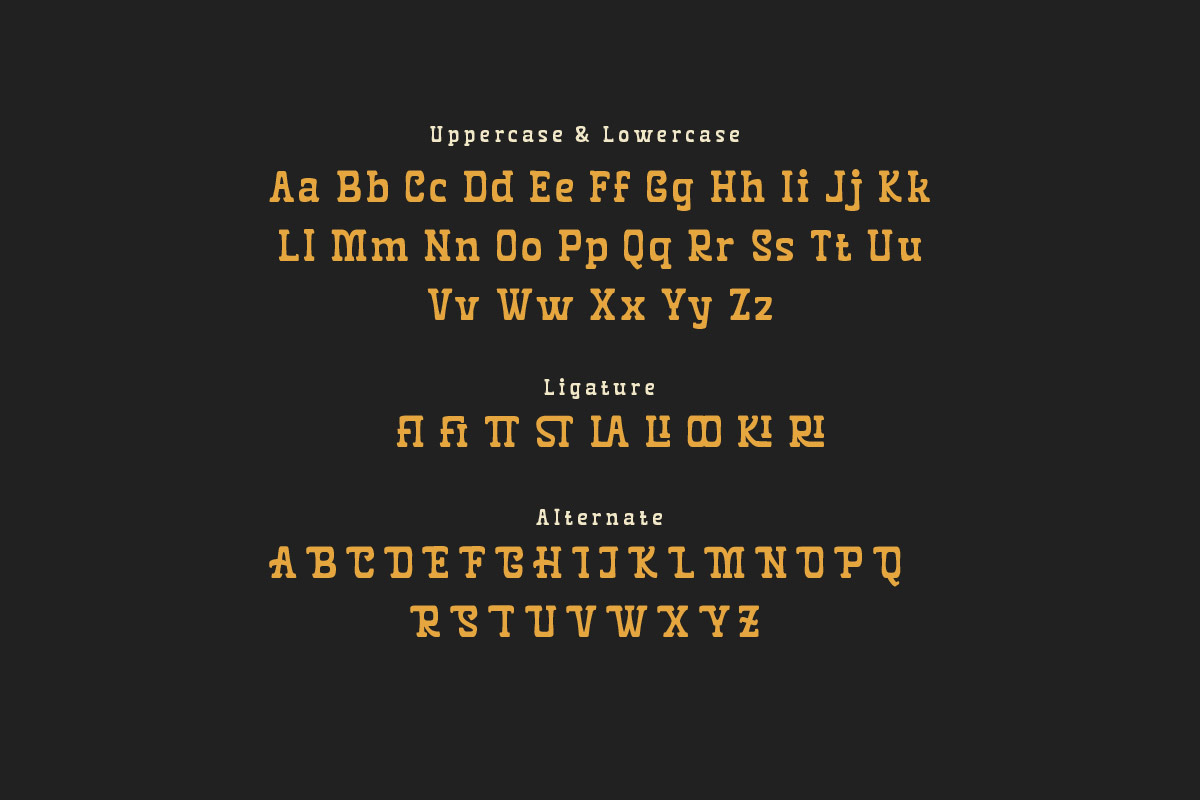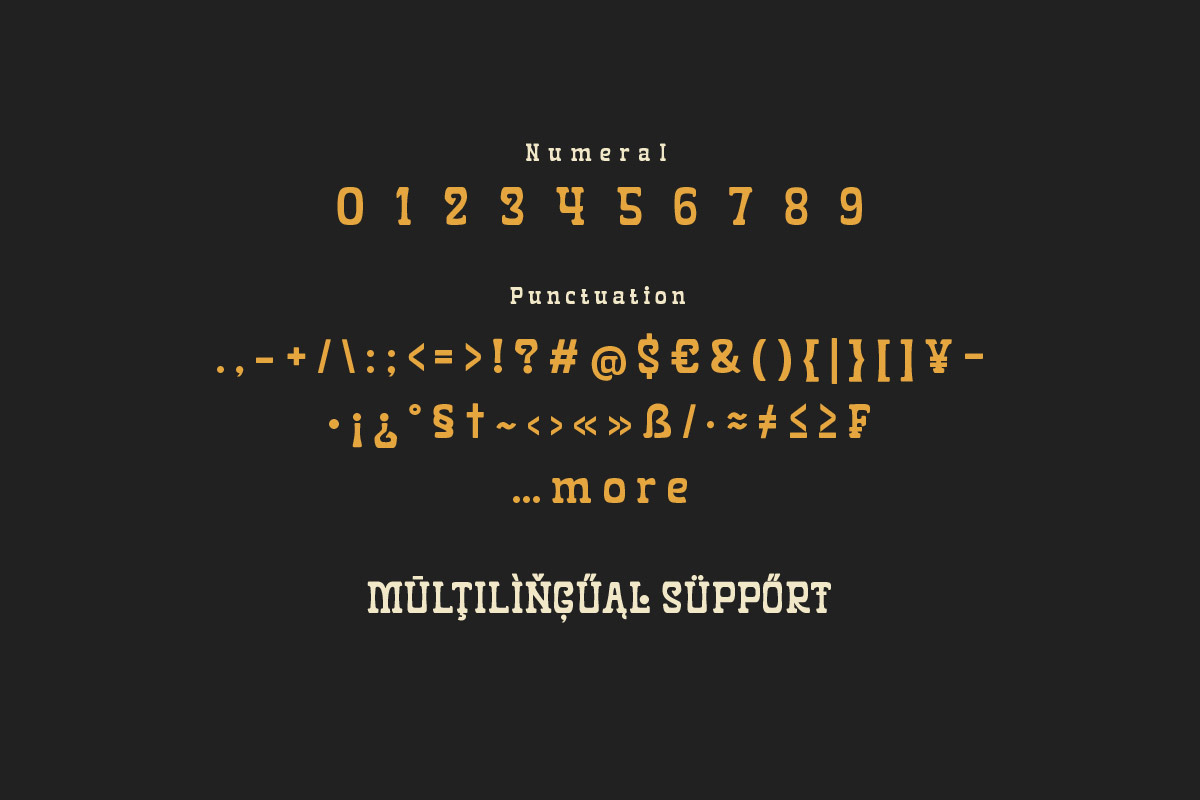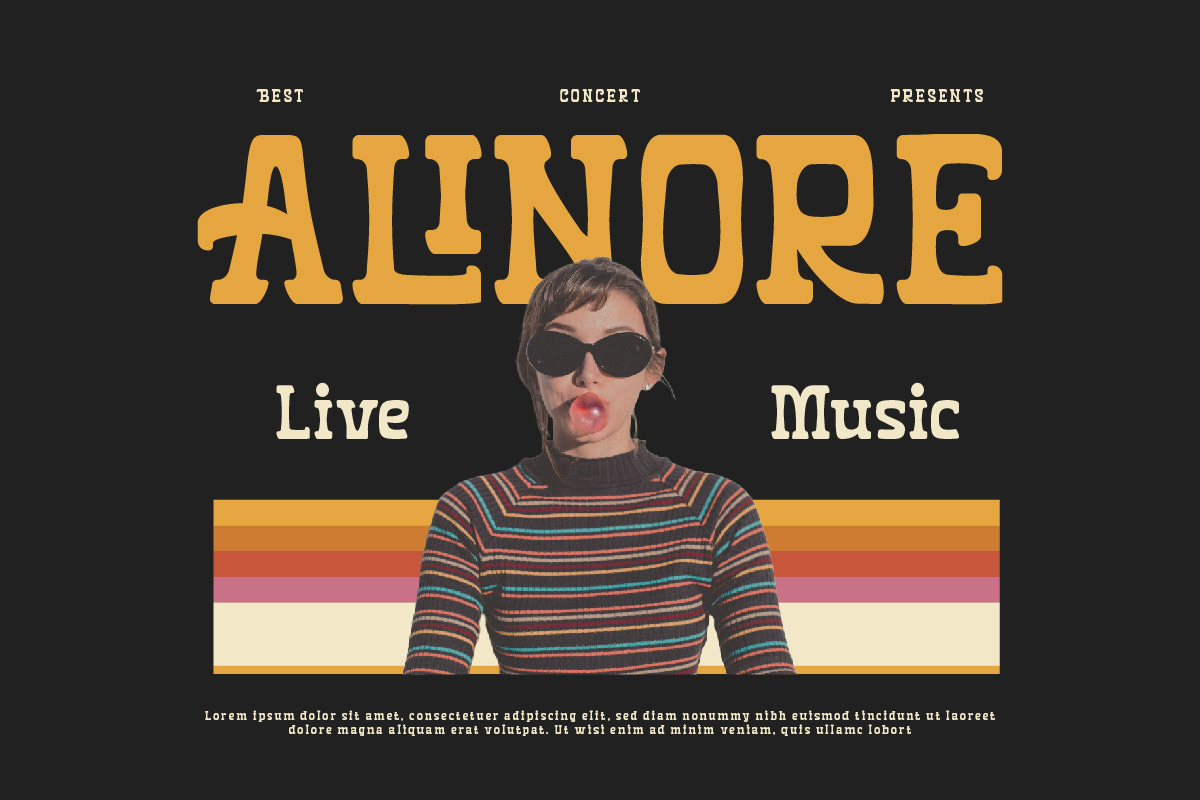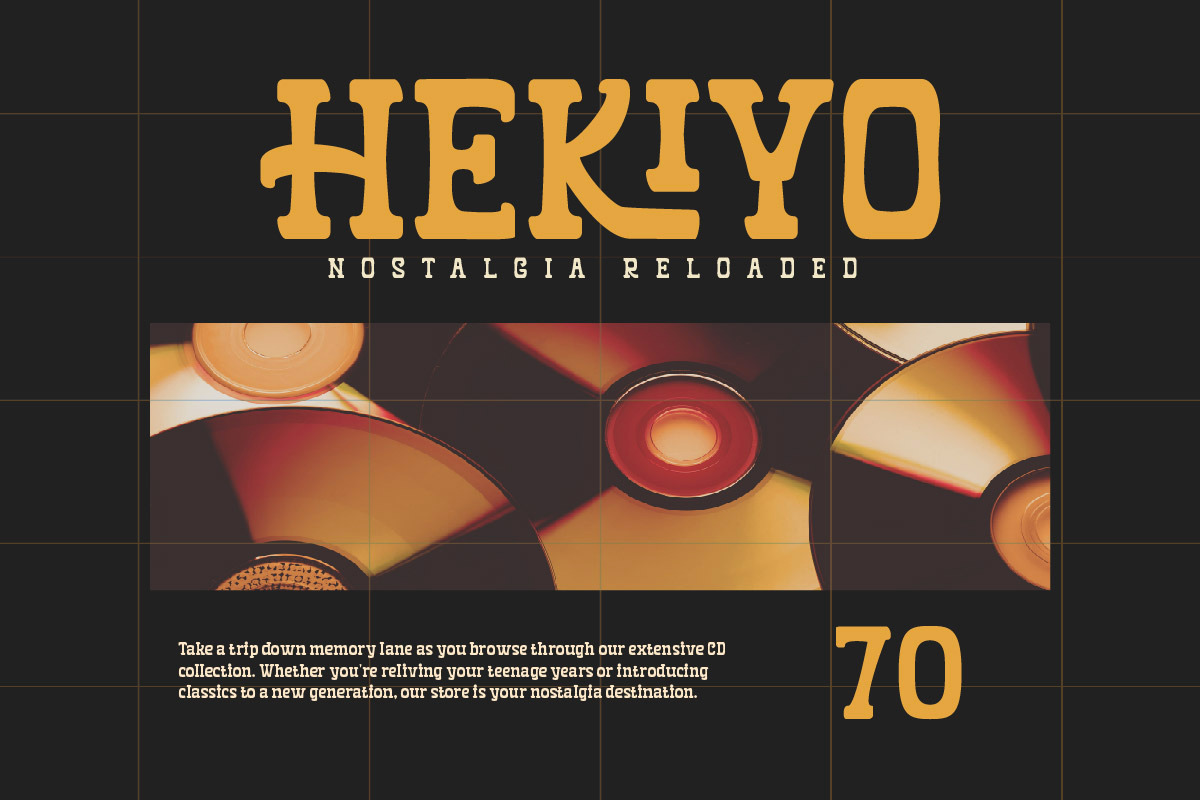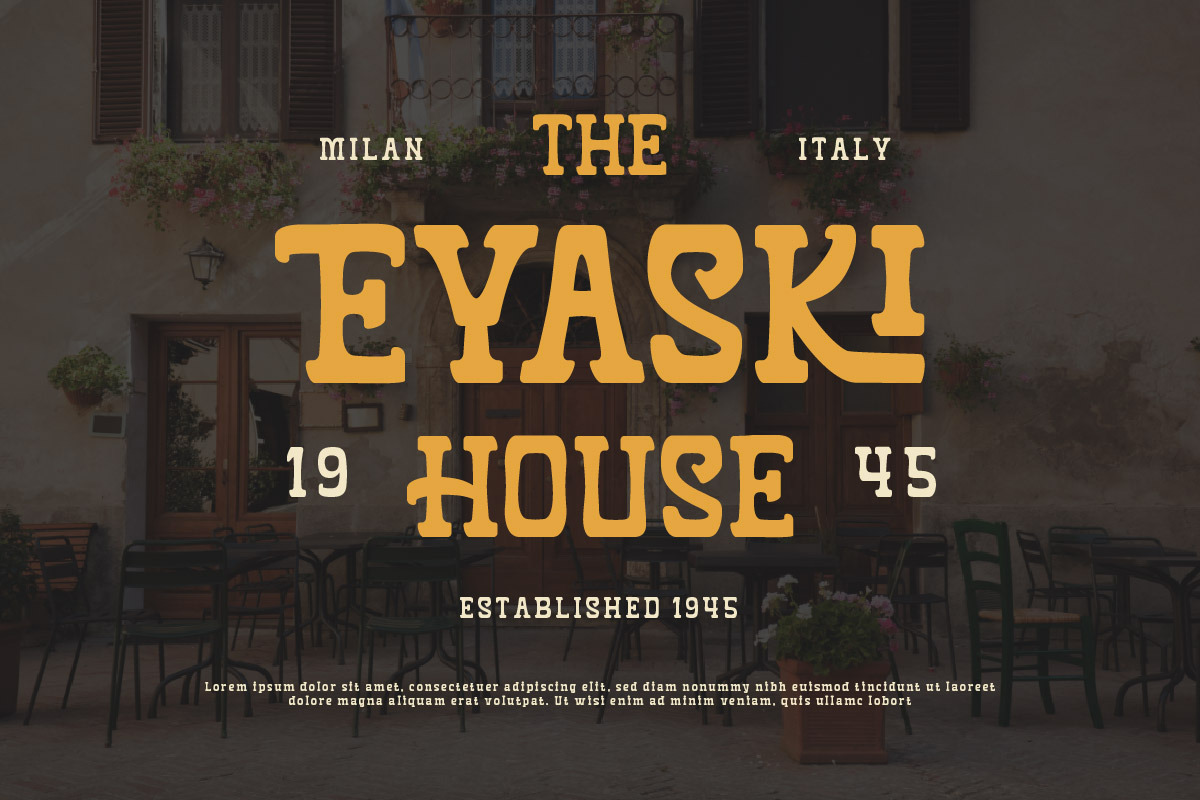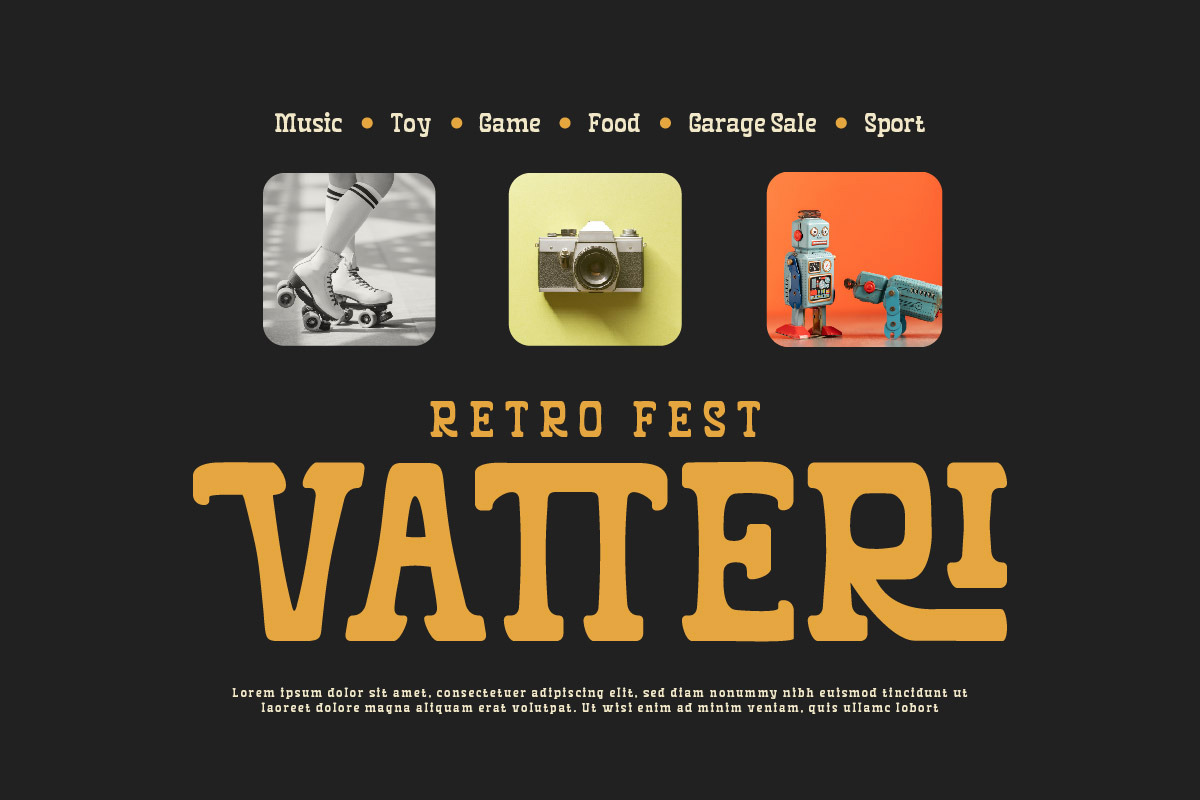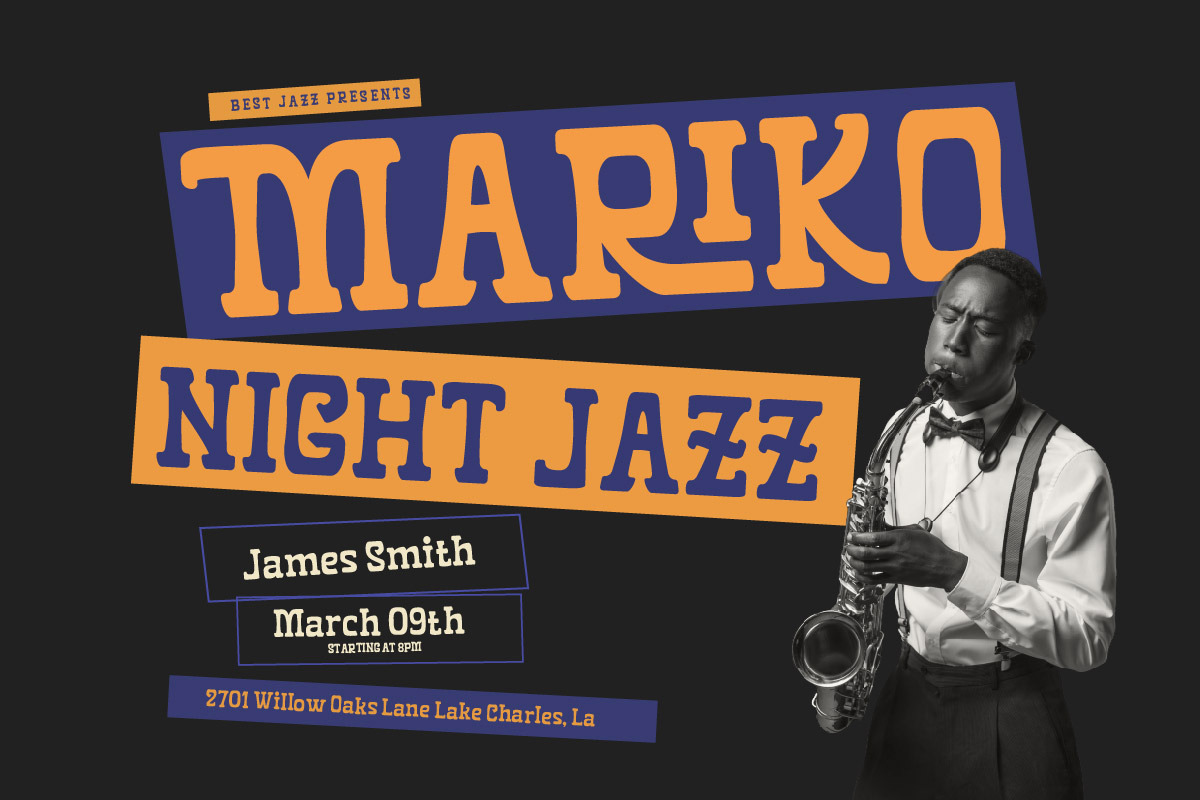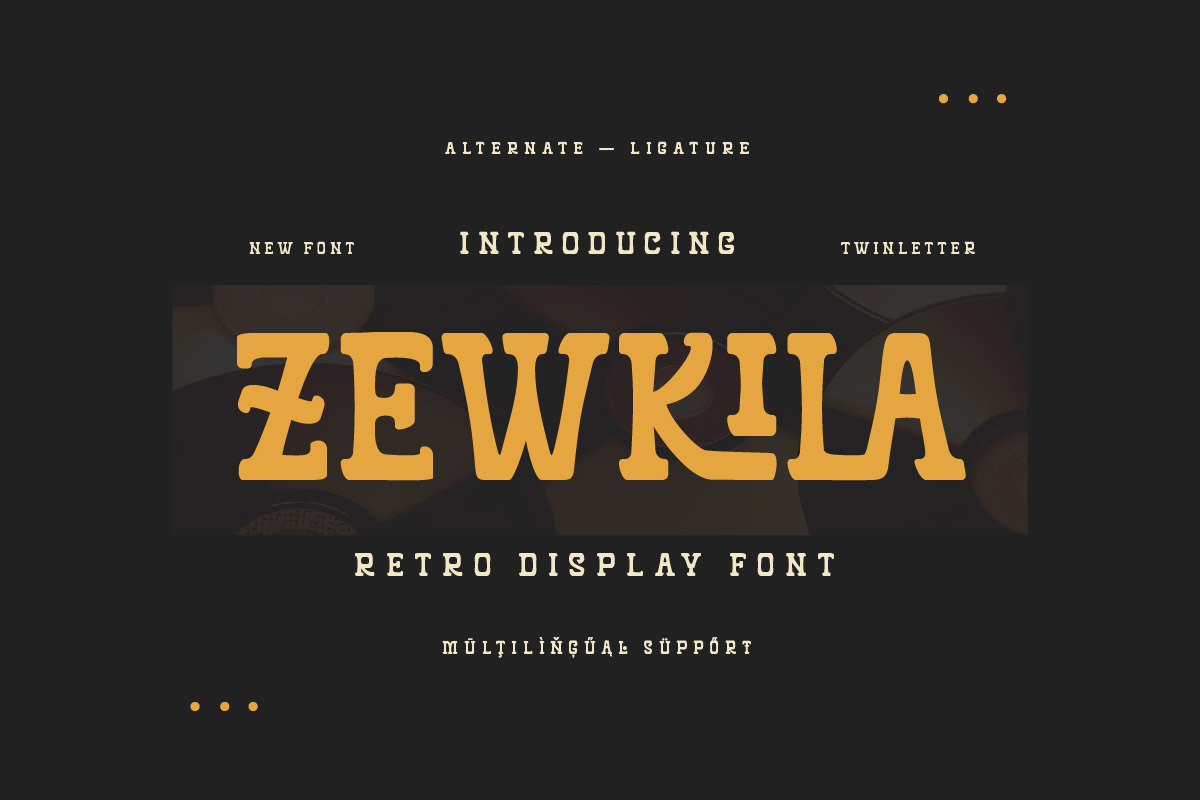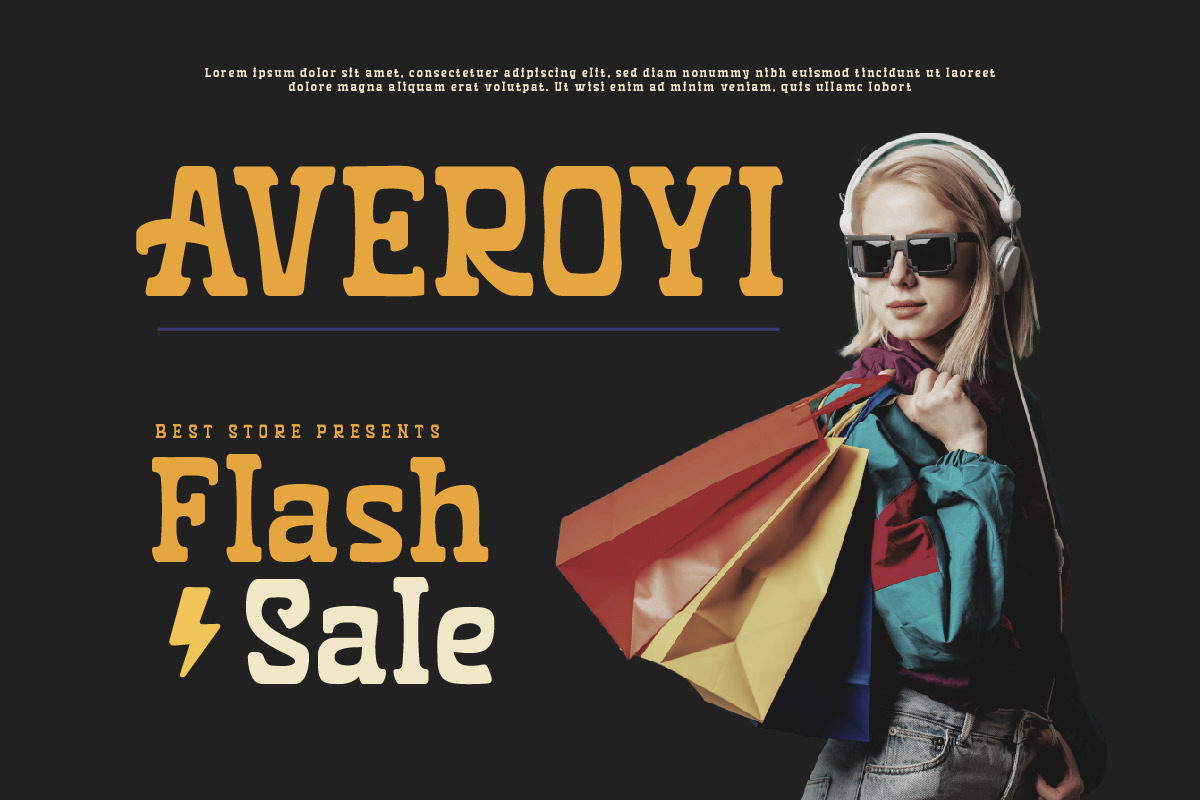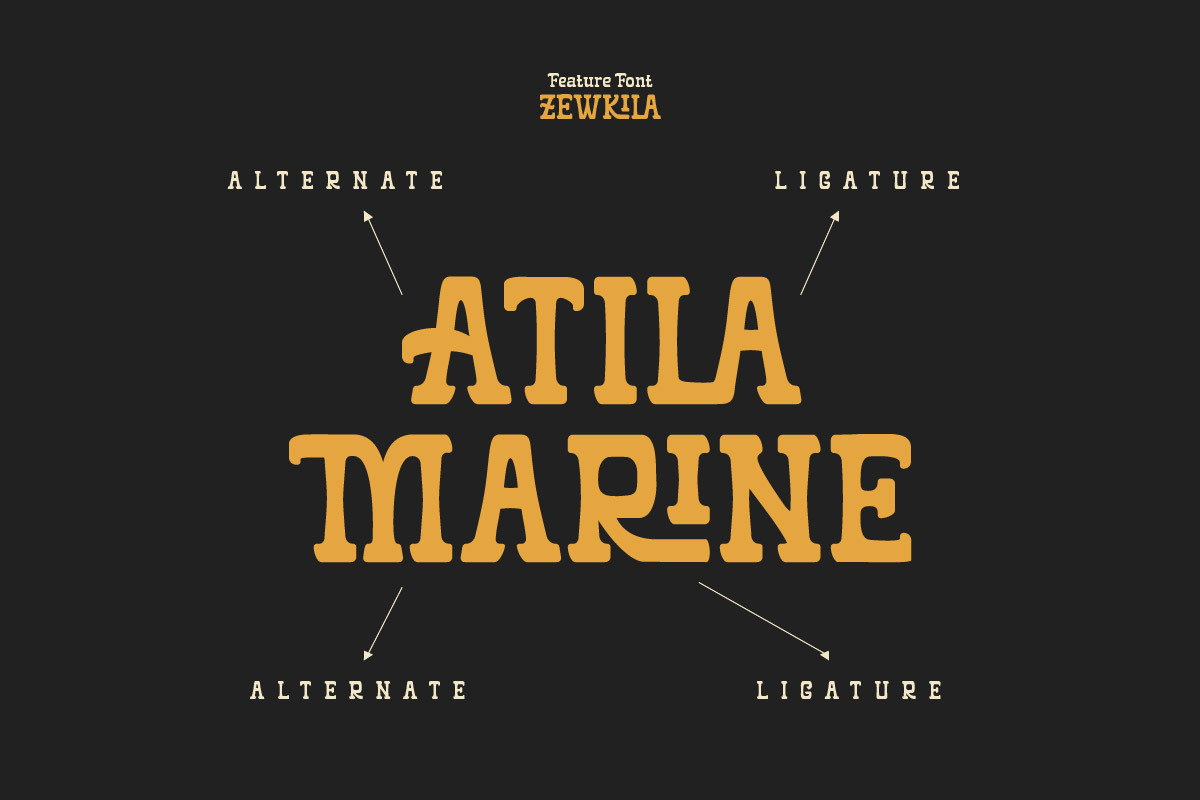
Zewkila - Retro Display Font
Zewkila is a retro display font that brings a touch of the past to your designs. Its unique, vintage-inspired characters are perfect for creating eye-catching headlines and logos that demand attention. But Zewkila is more than just a font, it’s a way to create an atmosphere of nostalgia and intrigue. With Zewkila, your designs will not only be visually striking, but also create an atmosphere that keeps your audience captivated. It’s like a shadow in the dark, mysterious and chilling, perfect for any design that needs to evoke a sense of the past.